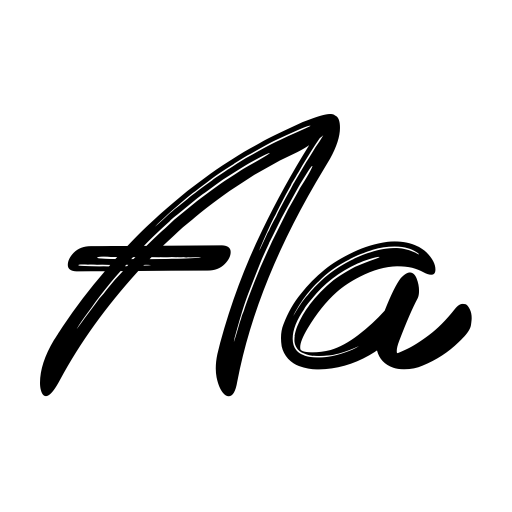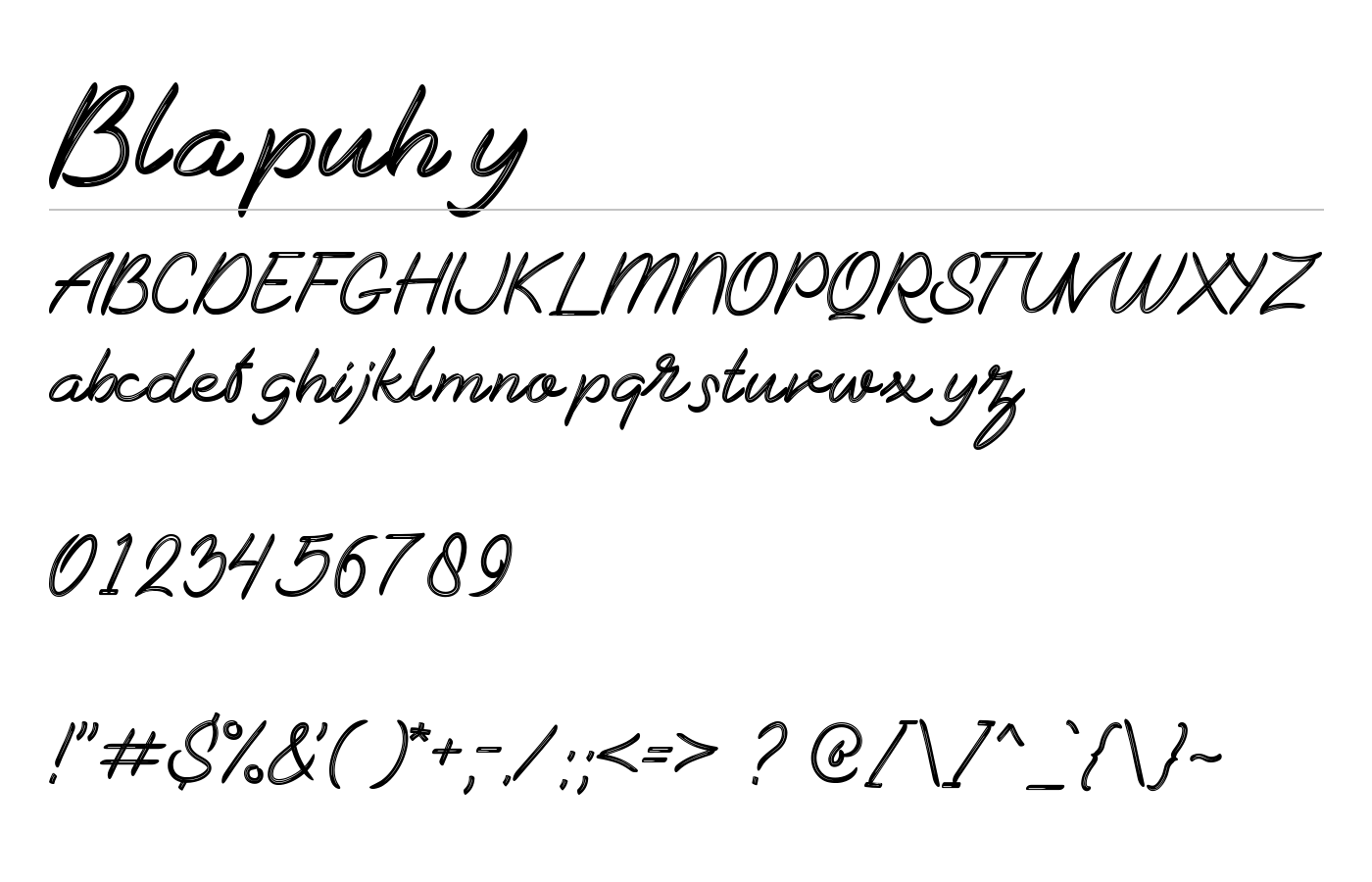
Blapuhy is a lively and elegant script font that mimics natural handwriting with its smooth, flowing strokes and moderate contrast. Its slender and slightly condensed letterforms create a casual yet polished feel, making it perfect for branding, invitations, or headings that want to strike a friendly and sophisticated tone. This font shines in creative projects where a personal touch and distinctive style are desired.
Blapuhy Font
About Blapuhy Font